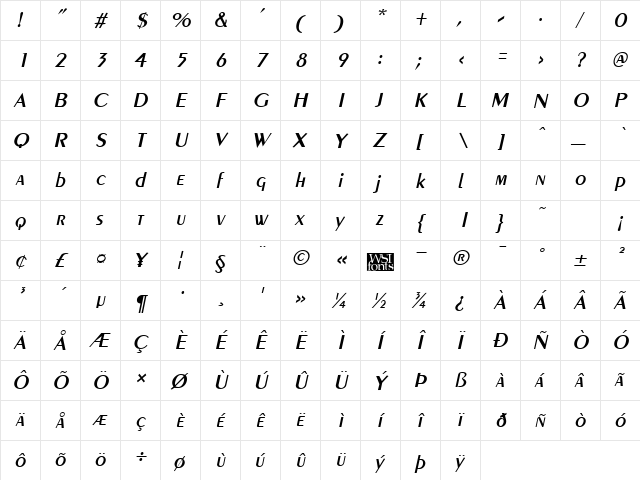
Penyae Italic
Design Context for Penyae Typeface
Penyae takes a measured approach to typography — its balanced proportions and neutral character make it a reliable workhorse for both digital and print work. The dynamic lean of this cut emphasises speed and emphasis in any layout.